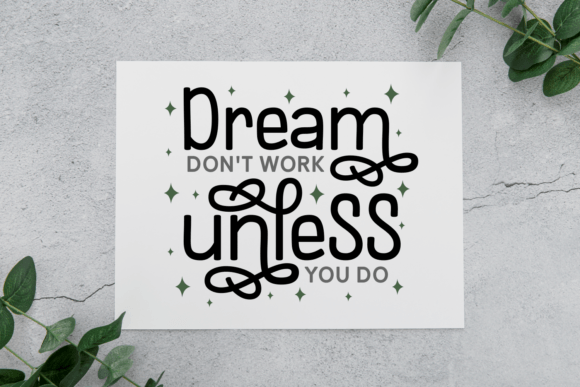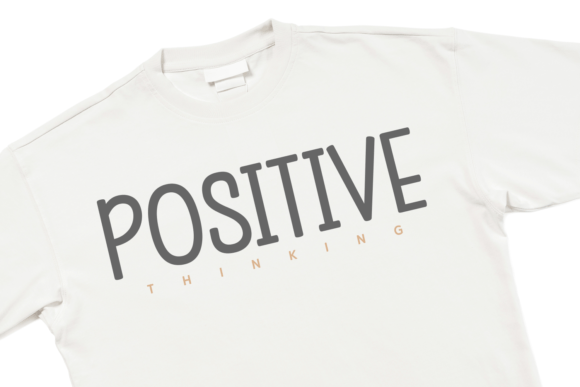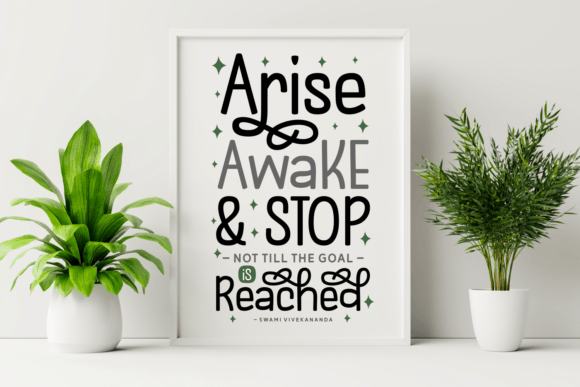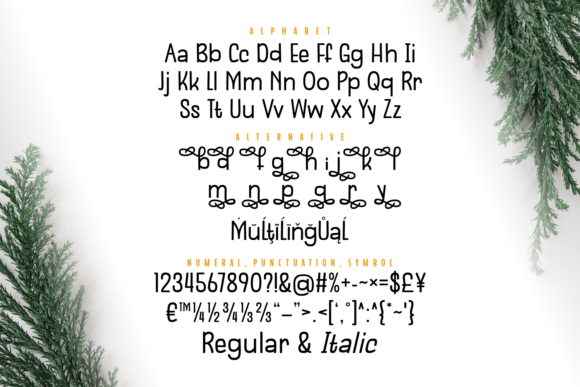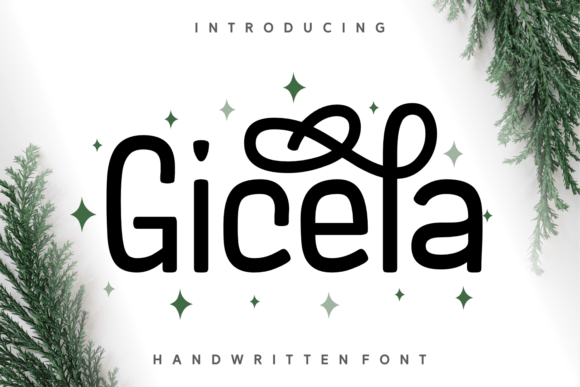
Gicela Font: Elevate Your Designs with a Modern and Elegant Handwritten Font Duo
Are you searching for a font that can add a touch of elegance and sophistication to your designs? Look no further than Gicela Font, a modern and elegant handwritten font duo that’s perfect for a wide range of projects. With its captivating strokes and versatile design, Gicela Font is ideal for crafters, designers, and anyone looking to add a personal touch to their work.
What Makes Gicela Font So Special?
Gicela Font is a beautifully crafted font duo that consists of a regular and italic version, providing you with maximum versatility. The font’s modern and elegant design makes it perfect for a variety of applications, from crafting projects and product labels to quotes, branding projects, and digital designs. Whether you’re looking to create a cohesive brand identity or simply want to add a touch of personality to your work, Gicela Font is an excellent choice.
Key Features of Gicela Font
- Modern and Elegant Design: Gicela Font boasts a sleek and sophisticated design that’s perfect for creating stunning visual content.
- Handwritten Touch: The font’s handwritten style adds a personal touch to your designs, making them stand out from the crowd.
- Font Duo: Gicela Font comes with a regular and italic version, providing you with maximum versatility.
Use Gicela Font for a Variety of Projects
Gicela Font is an incredibly versatile font that can be used for a wide range of projects, including:
- Crafting Projects: Add a personal touch to your crafting projects, such as DIY tutorials, patterns, and instructions.
- Product Labels: Create stunning product labels that showcase your brand’s personality and style.
- Quotes and Inspirational Content: Use Gicela Font to create inspiring quotes, social media posts, and other visual content.
- Branding Projects: Develop a cohesive brand identity with Gicela Font, perfect for logos, business cards, and more.
- Digital Designs: Add a touch of elegance to your digital designs, such as website headers, social media graphics, and more.
Why Choose Gicela Font?
With so many fonts available, why choose Gicela Font? Here are just a few reasons why Gicela Font stands out from the crowd:
- Unique and Elegant Design: Gicela Font boasts a unique and elegant design that’s sure to capture your audience’s attention.
- Highly Versatile: The font’s versatility makes it perfect for a wide range of projects and applications.
- Perfect for Designers and Crafters: Whether you’re a designer or crafter, Gicela Font is an excellent choice for anyone looking to add a personal touch to their work.